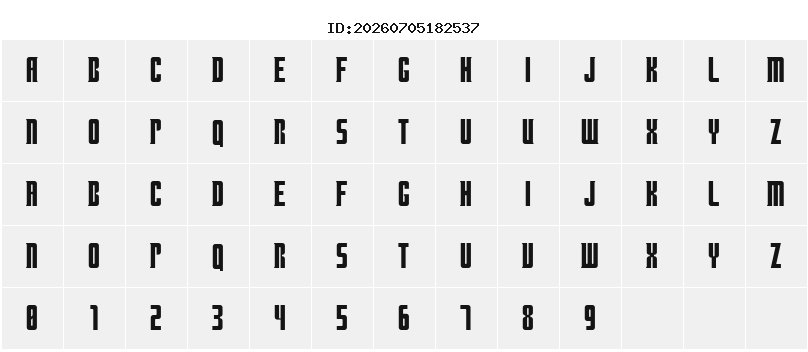
Doctor What Preview
• Font Name: Doctor What
• Full Font Name: Doctor What
About Doctor What.ttf
Doctor What.ttf is a modern, elegant sans-serif font designed for ultimate readability and visual harmony. Perfect for branding, headlines, web design, and print materials.